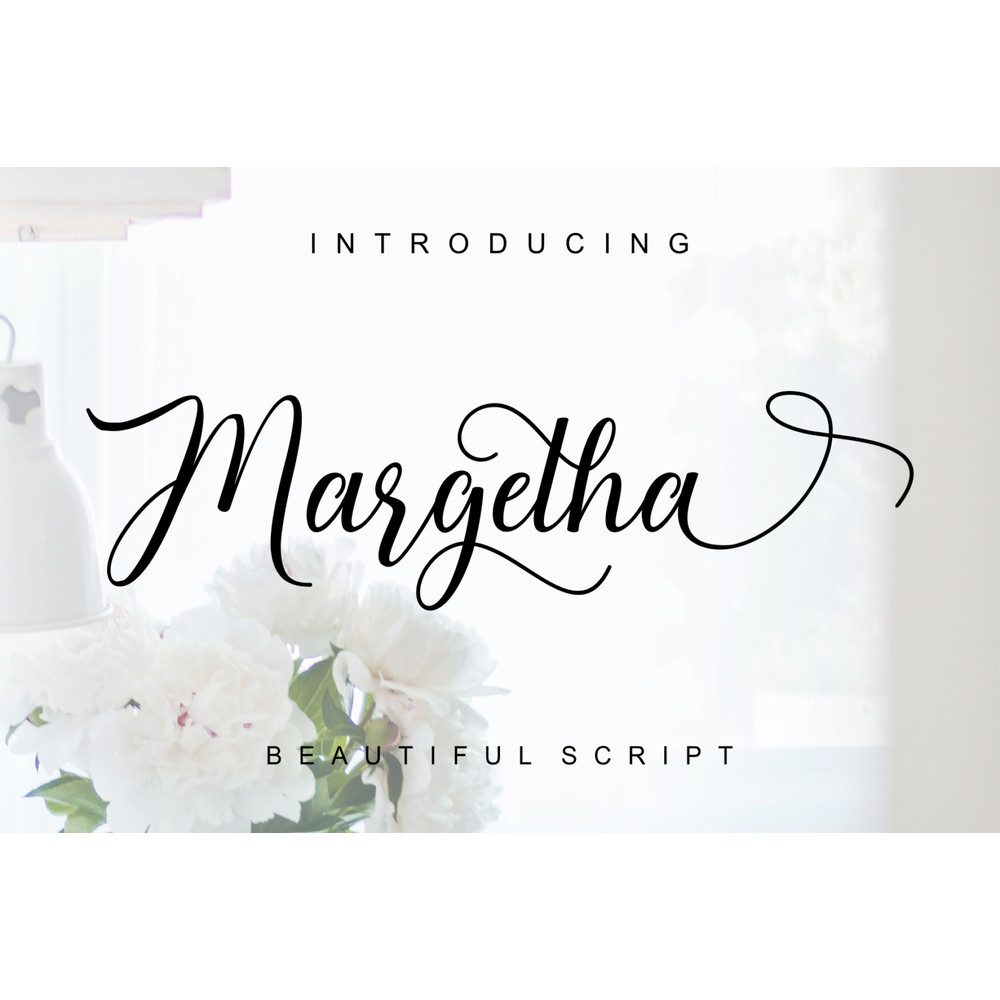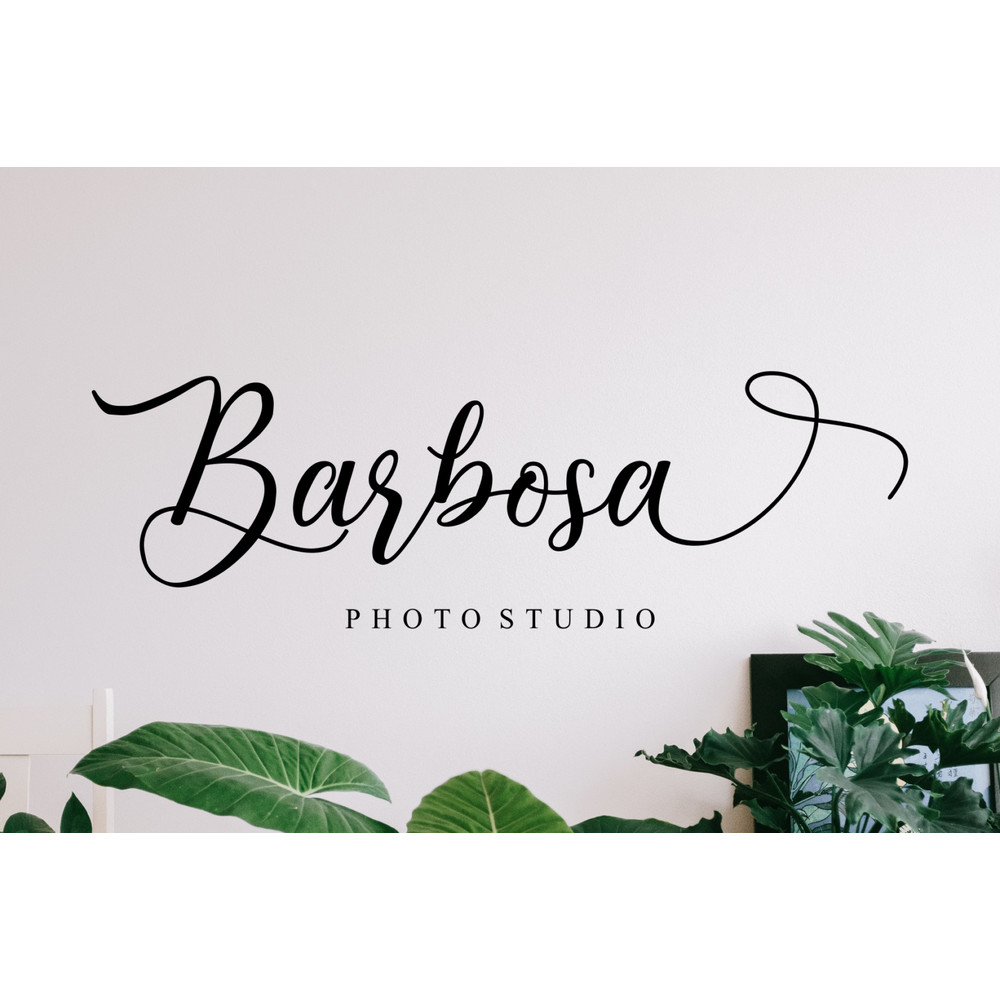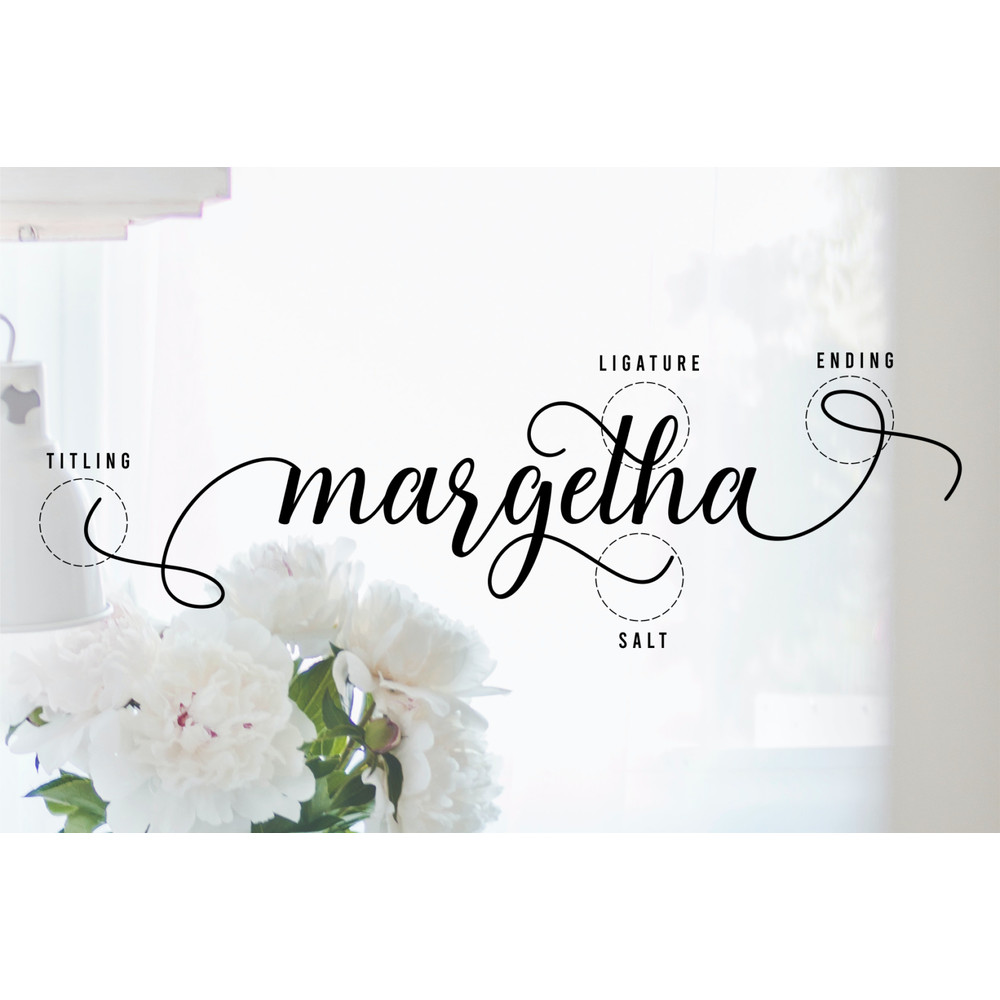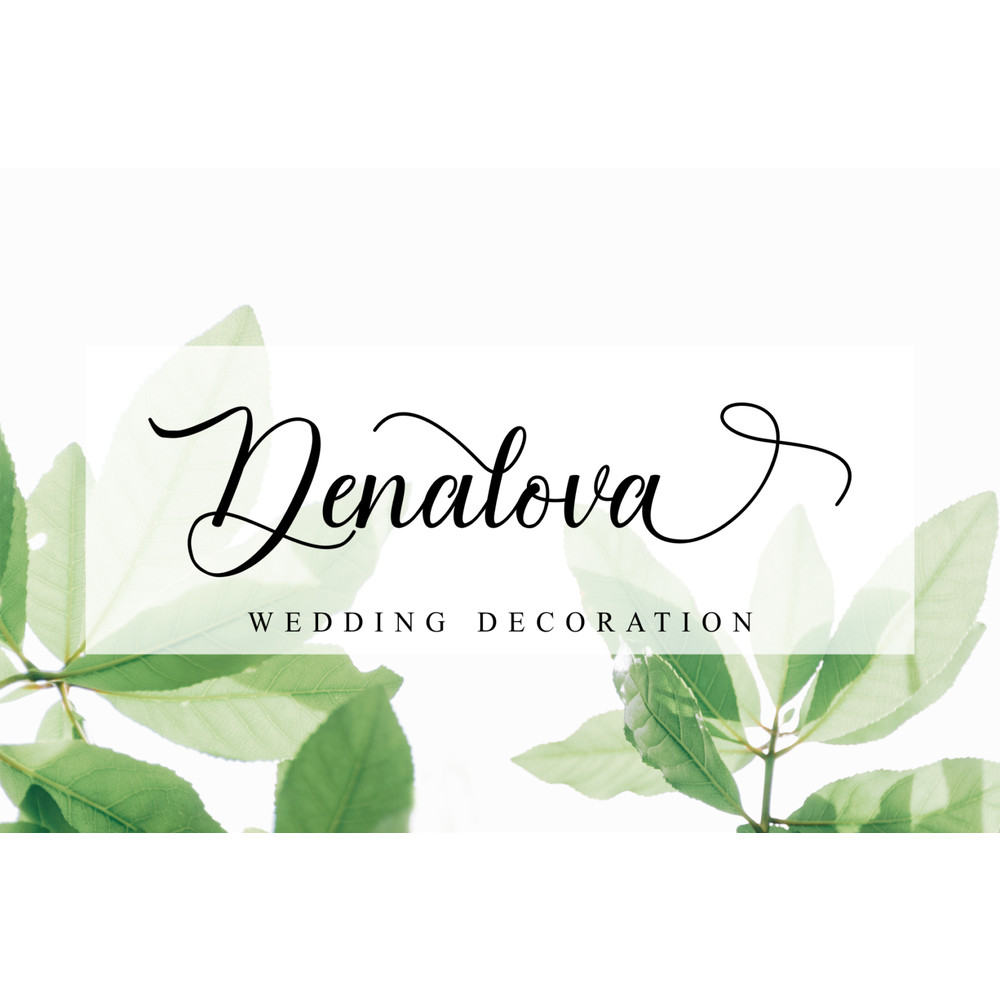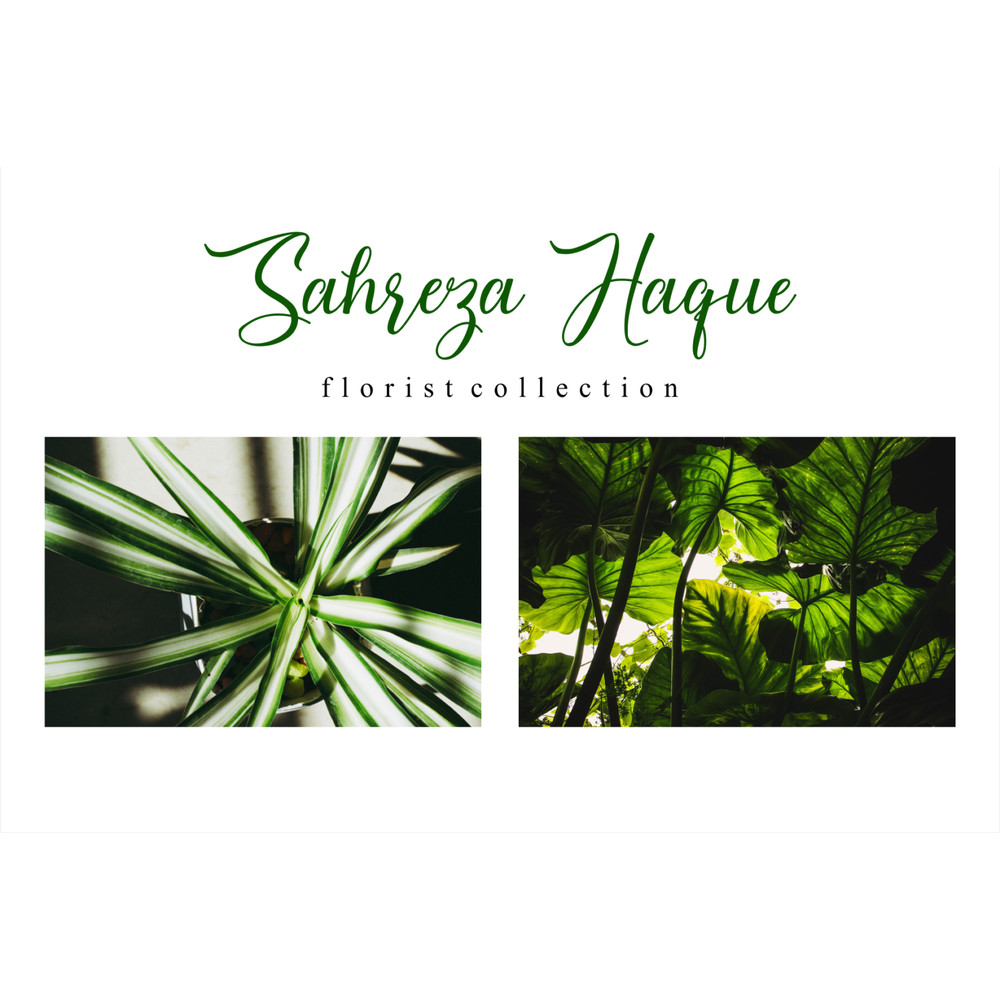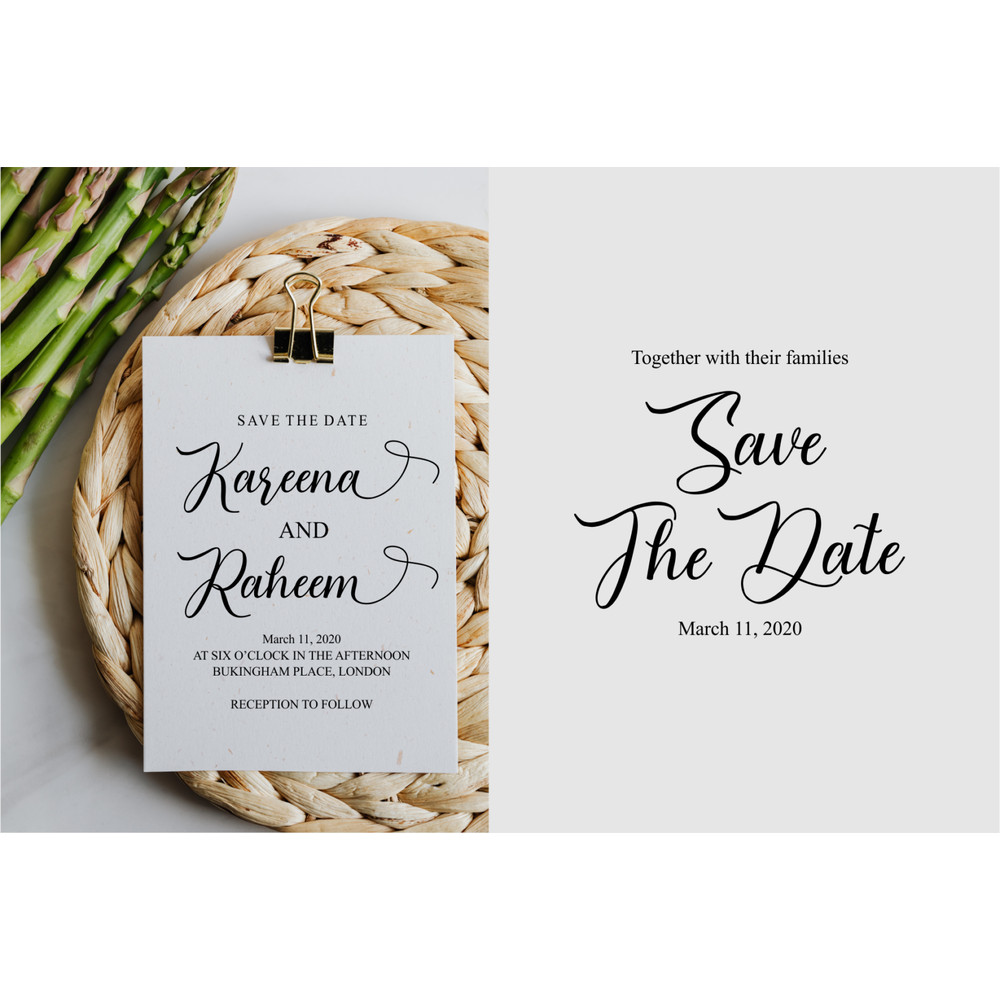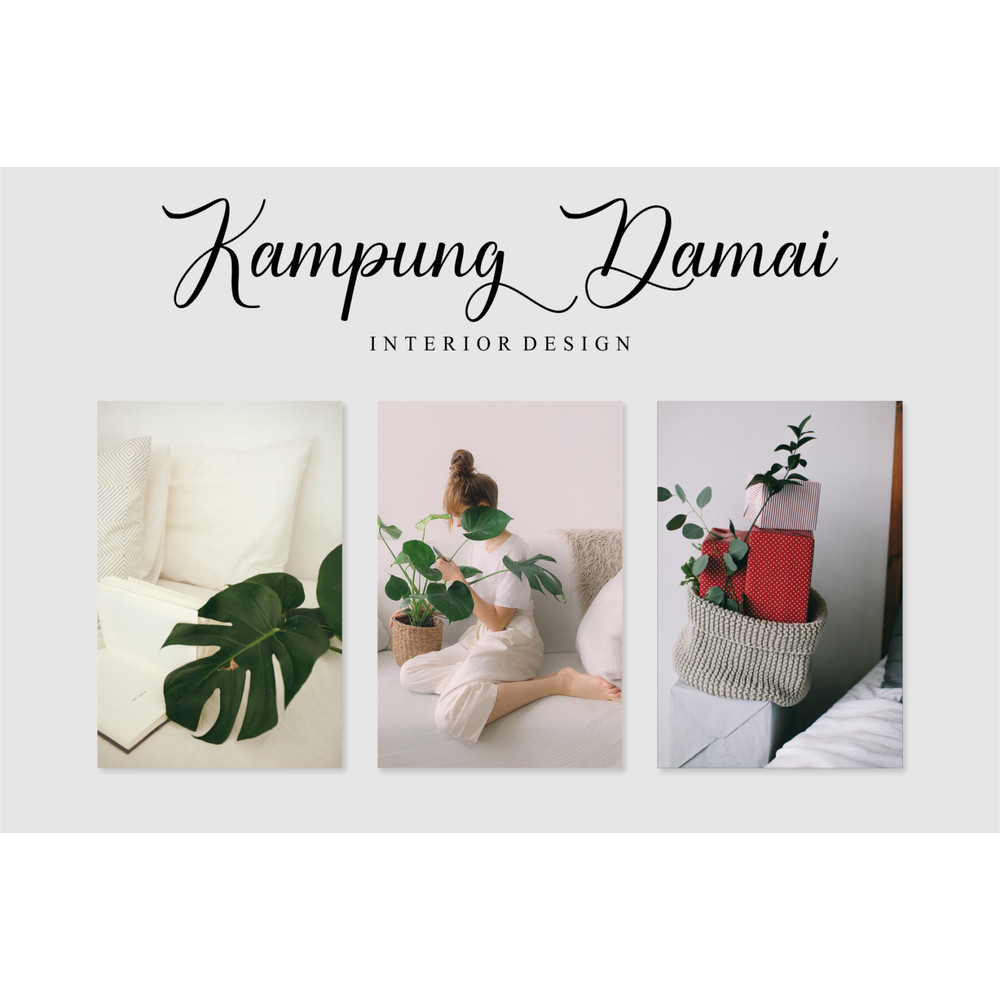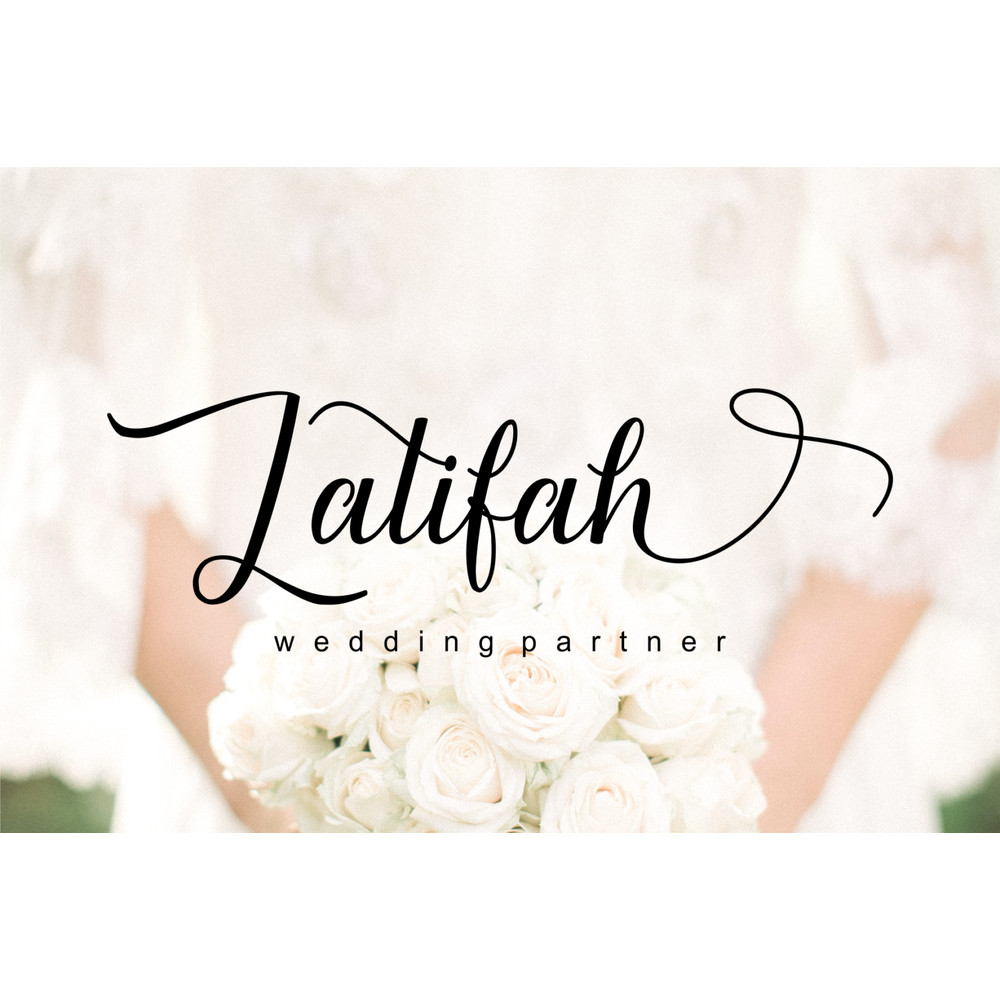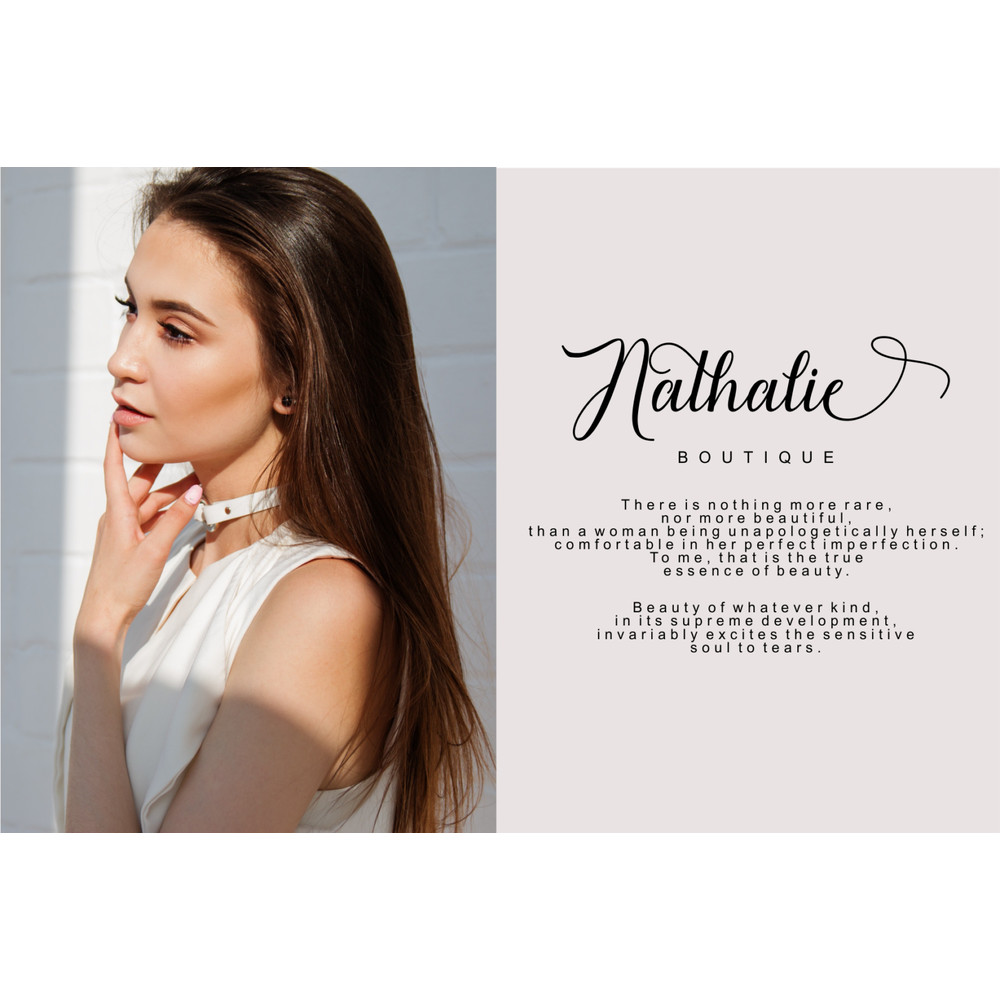
Margetha Beautiful Calligraphy Trending Fonts - Digital Font
Margetha is inspired by classic typography and brings its own unique style to any design project. This fantastic script font is best suited for headlines of all sizes, as well as for blocks of text that have both maximum and minimum variations. Whether it’s for web, print, moving images or anything else – Margetha will look spectacular.
Margetha Beautiful Calligraphy Trending Fonts - Digital Font
Margetha is inspired by classic typography and brings its own unique style to any design project. This fantastic script font is best suited for headlines of all sizes, as well as for blocks of text that have both maximum and minimum variations. Whether it’s for web, print, moving images or anything else – Margetha will look spectacular.